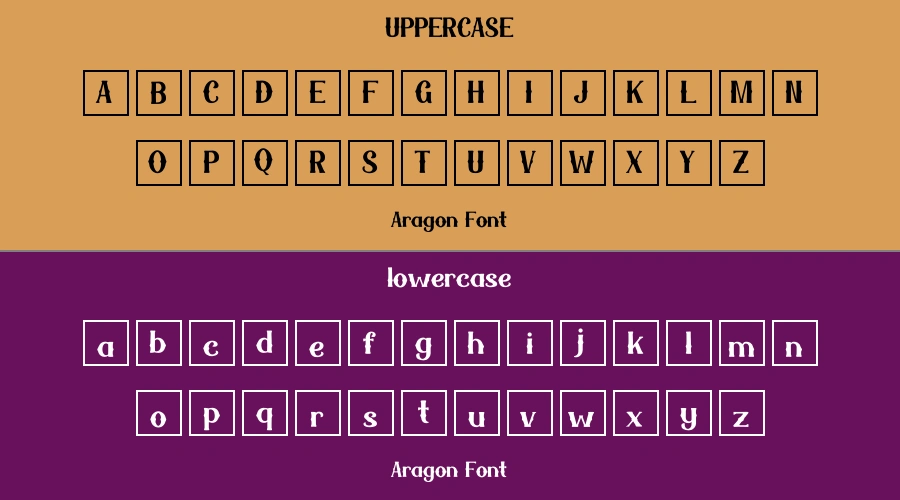
About Aragon Font
Aragon Font represents a sophisticated approach to type design, balancing harmonious shapes with durability. Perfect for packaging hero, this font family showcases impressive durability and brand alignment throughout its character set. Designers appreciate its versatility and reliability.
Designers will appreciate nuanced touches including fluid connections and technical characters, adding sophistication to any project. These features become apparent in specification lists, where consumer preference matters most. The careful treatment of character width and design philosophy ensures optimal performance.